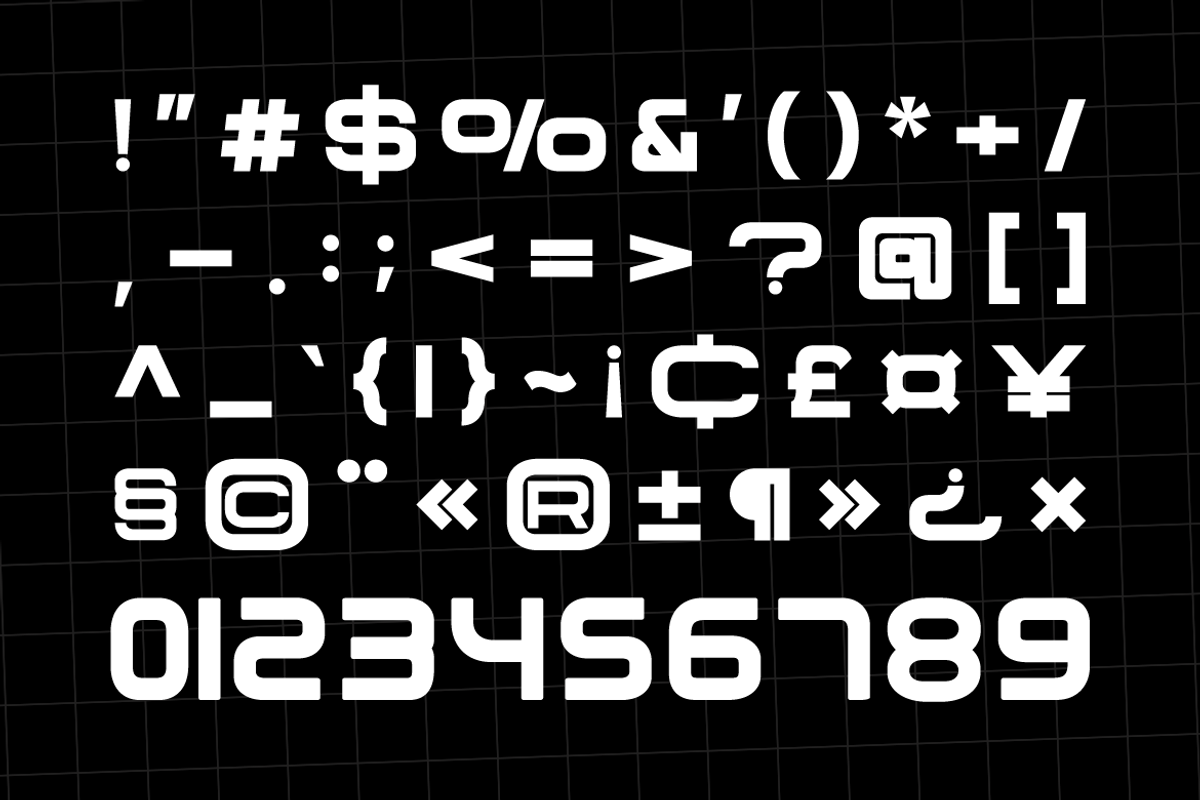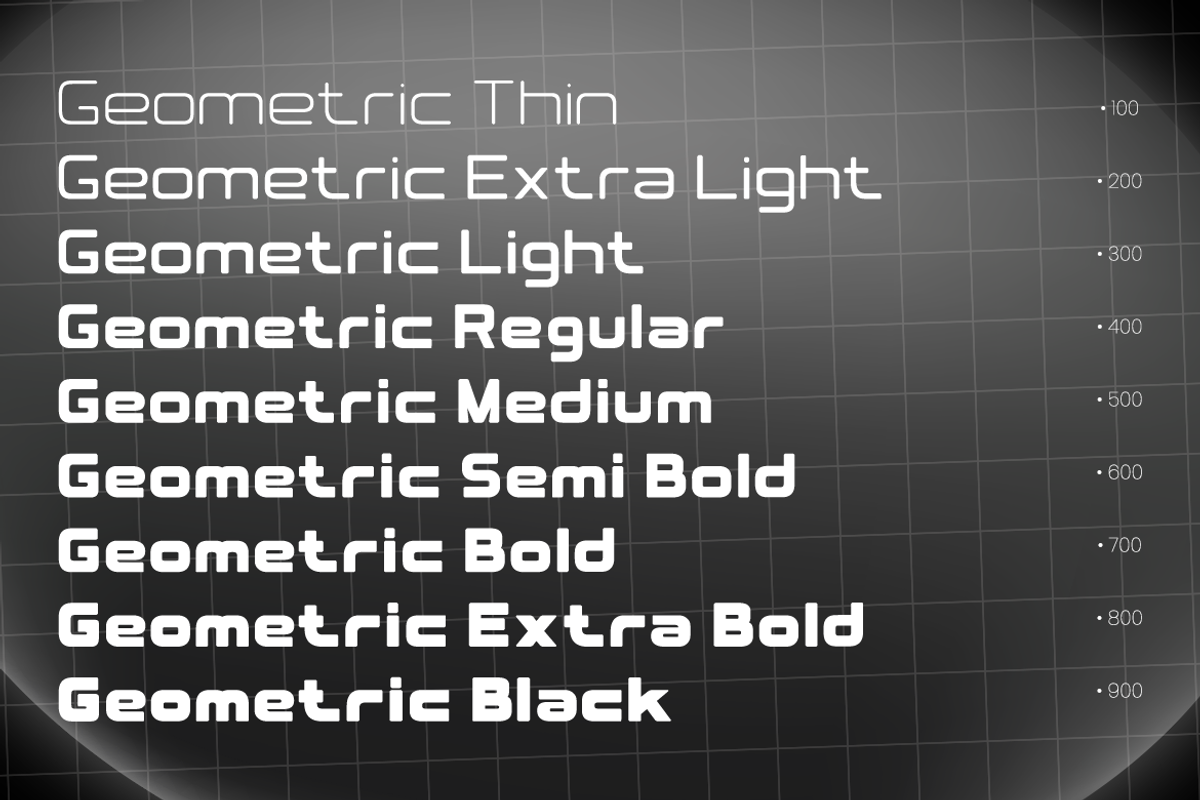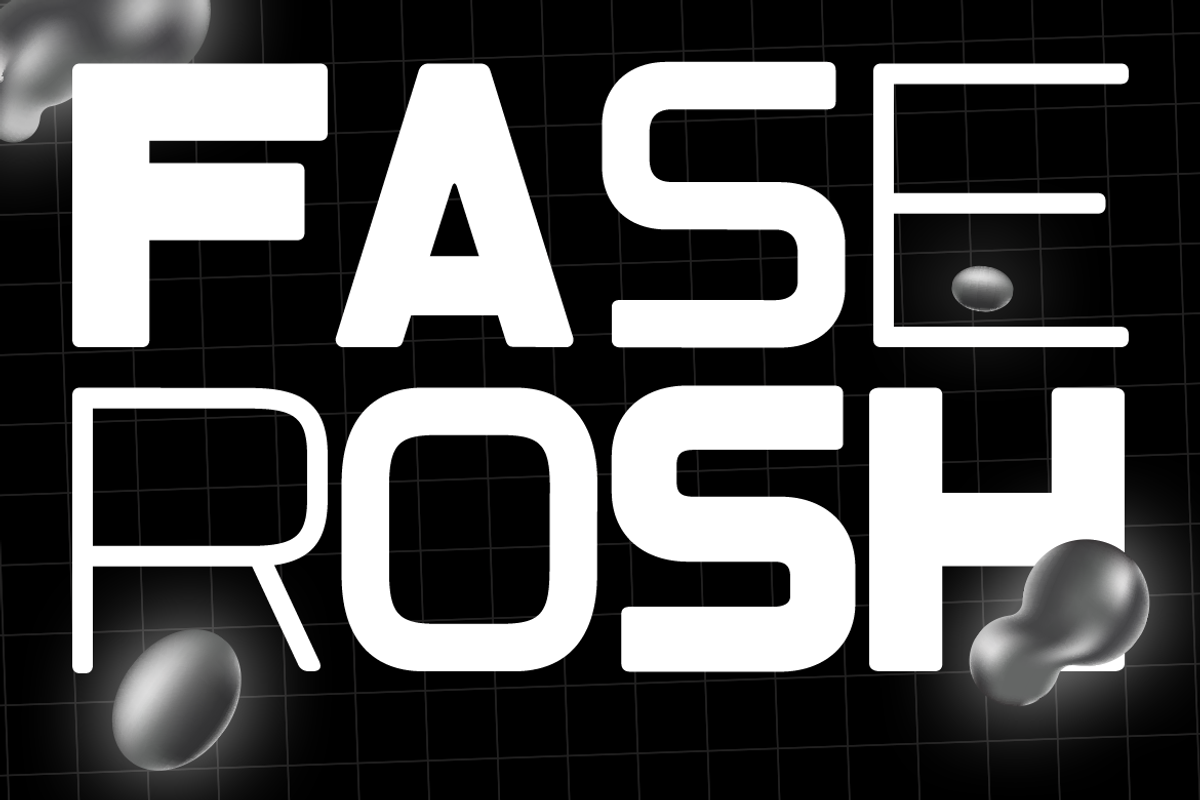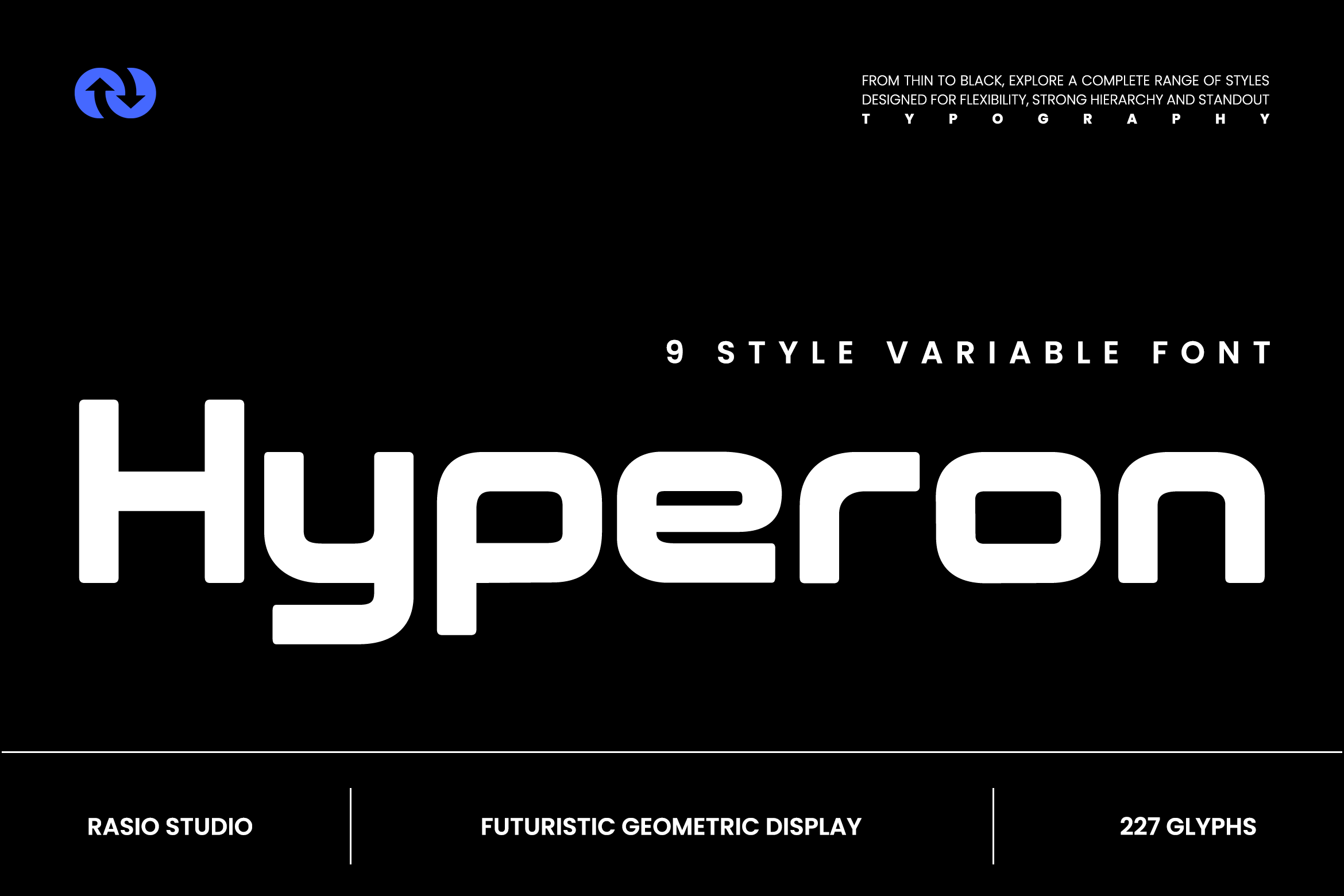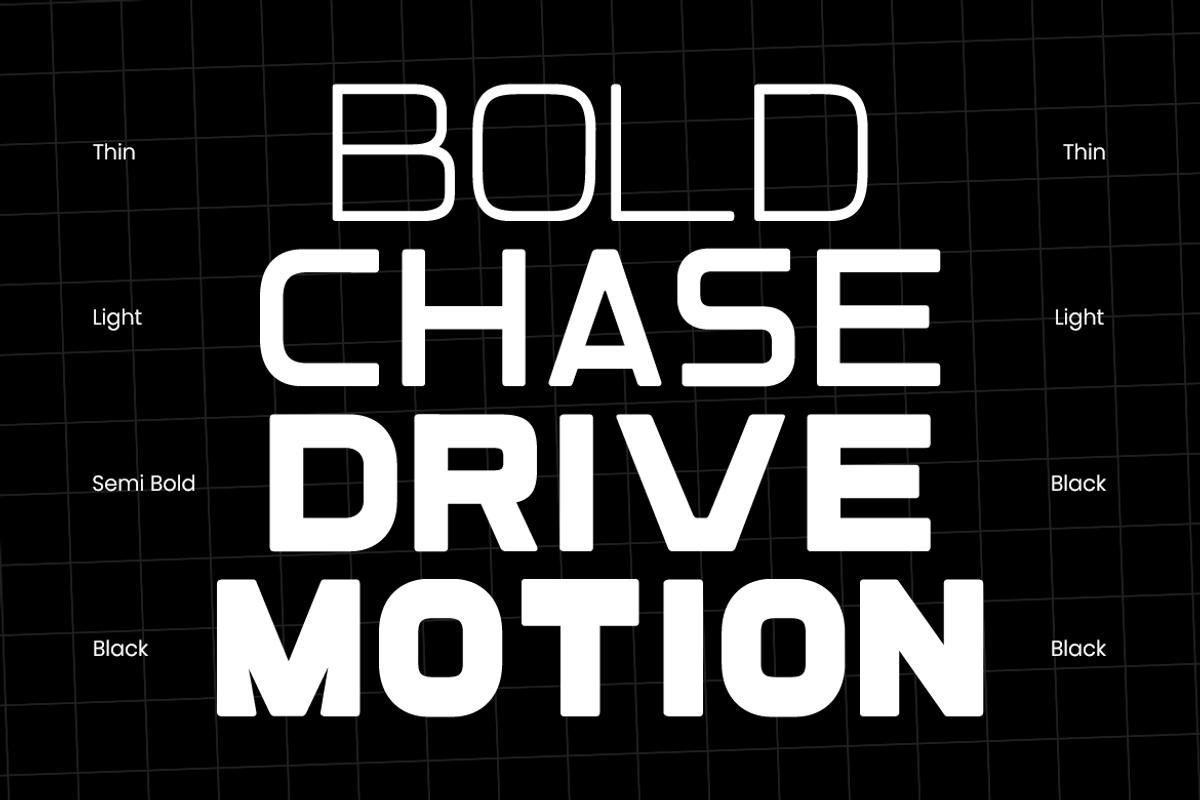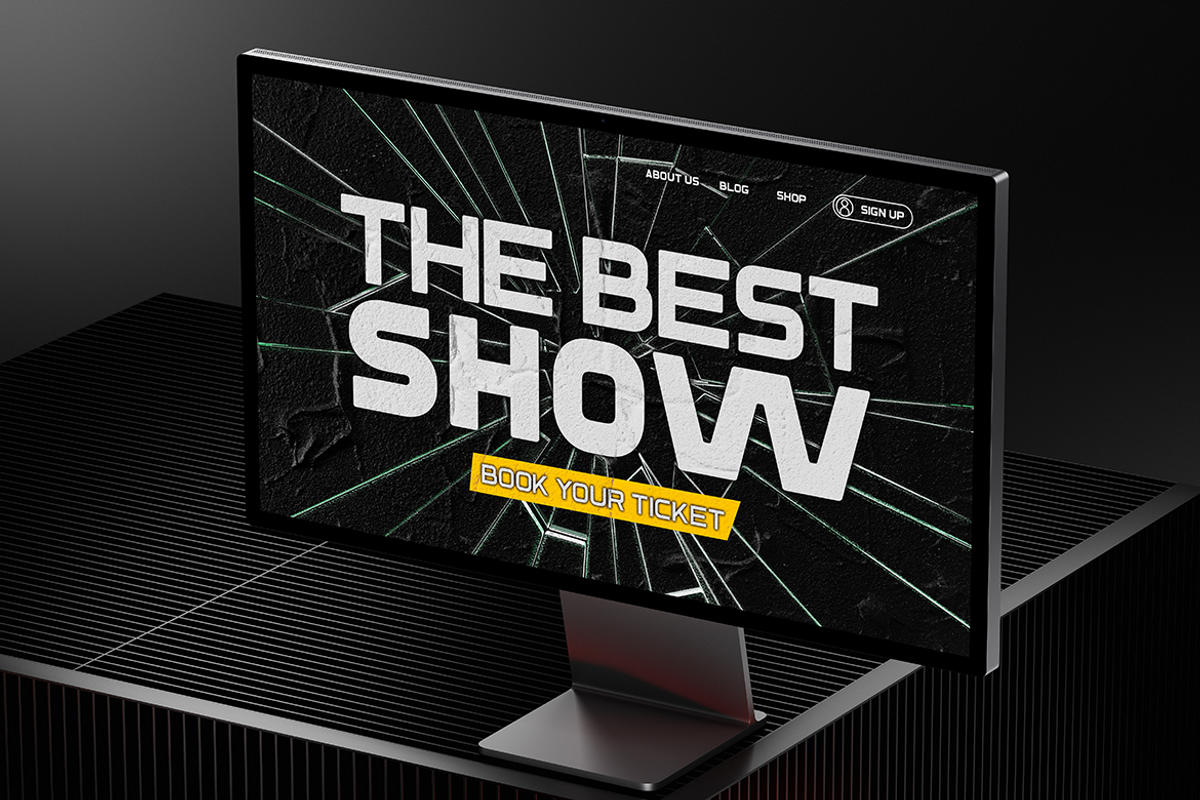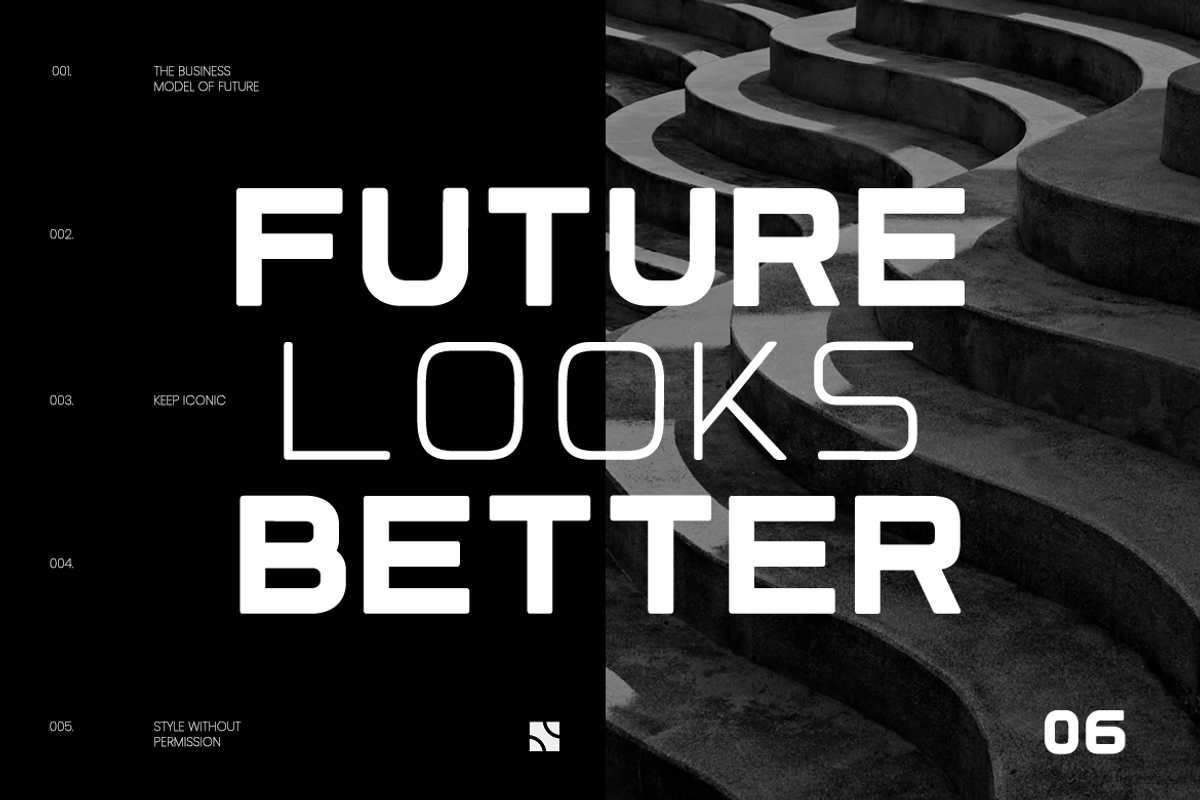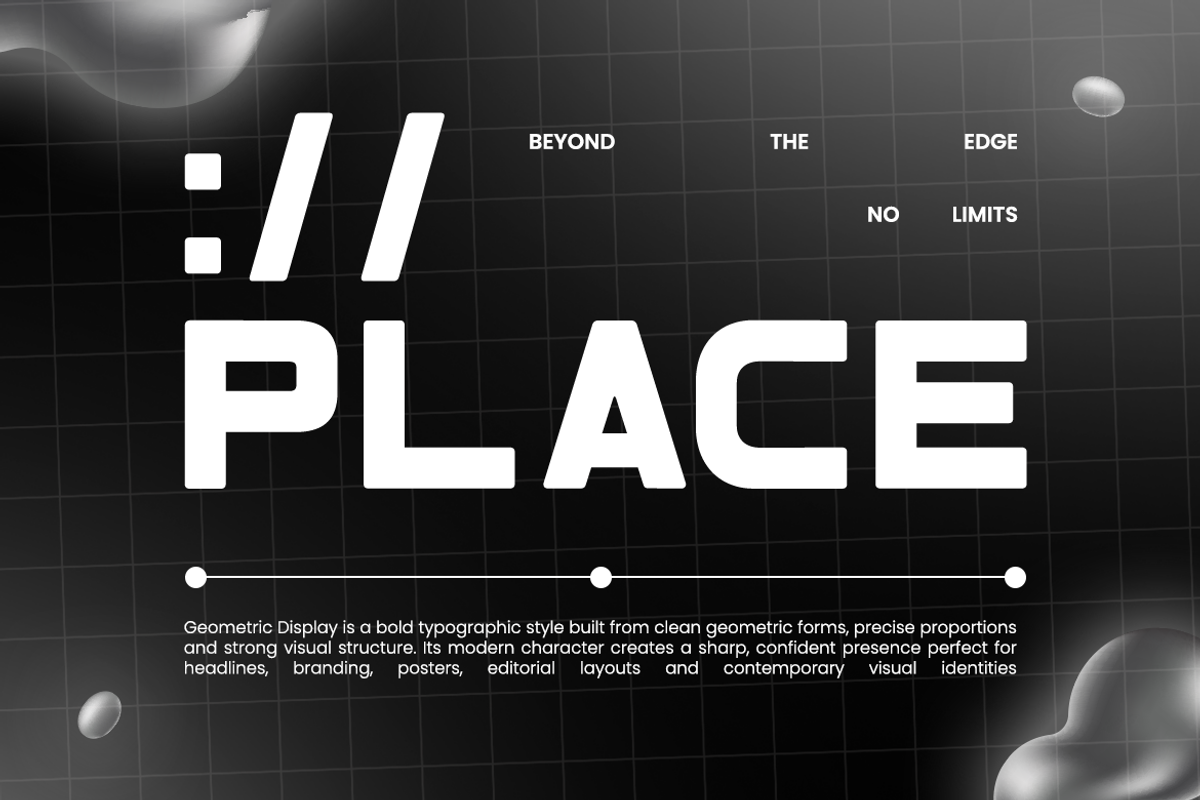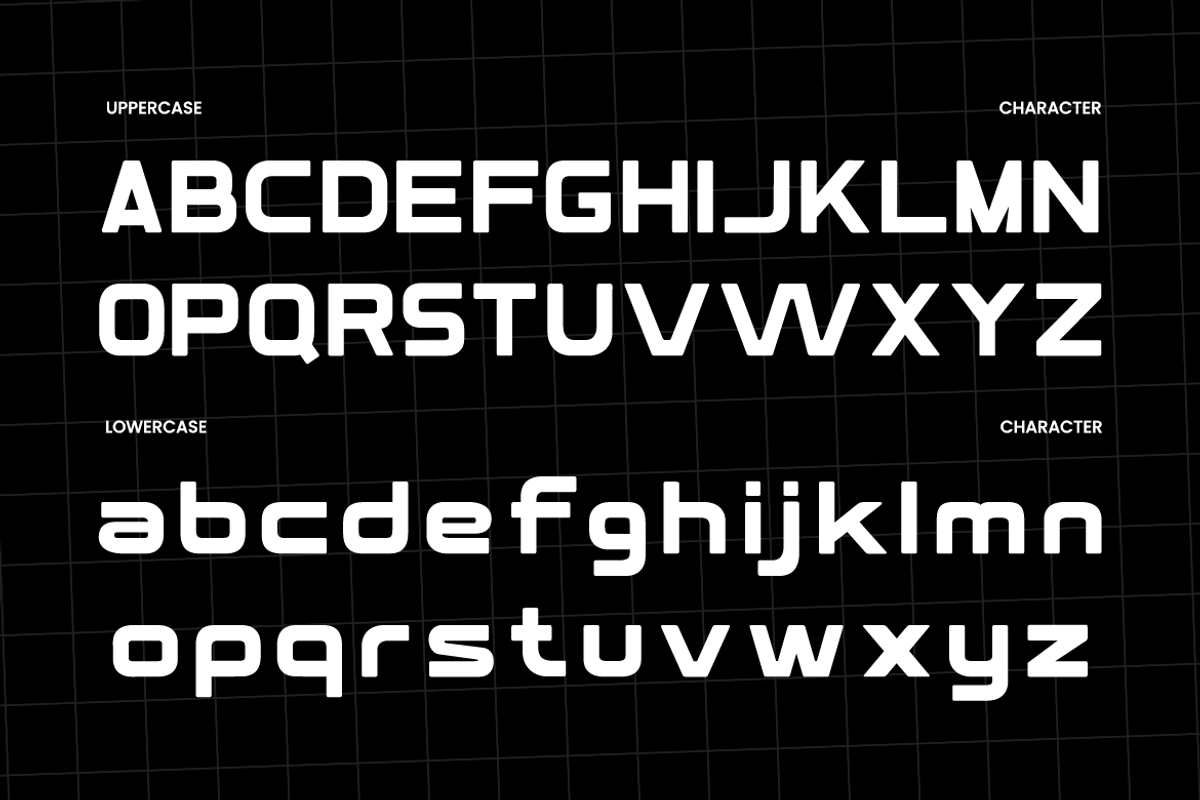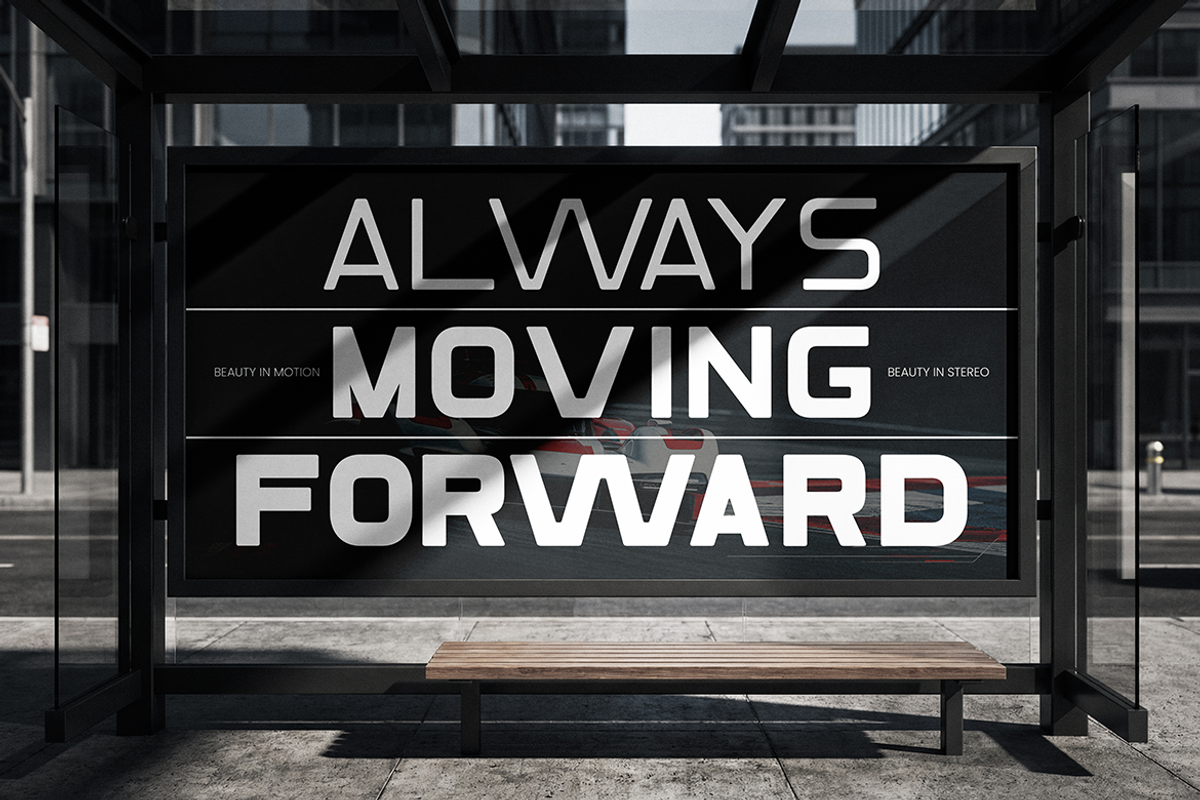
Hyperon Futuristic Geometric Font
Hyperon Futuristic Geometric Font is a futuristic variable sans serif typeface built around bold geometric shapes, rounded corners, and a distinctive technical structure. Its letterforms feature wide proportions, smooth curves, compact counters, and custom horizontal cuts that give the characters a sleek digital appearance. The uppercase letters create a strong, structured silhouette, while the lowercase characters introduce softer rounded forms without losing the futuristic character. With 9 variable styles, Hyperon provides a flexible range of weights that can shift from clean and lightweight typography to bold, high-impact display lettering.
The typeface is designed to work especially well in large-scale typography where its geometric details and unique letter construction can stand out. Its futuristic appearance makes it useful for technology branding, gaming projects, digital products, UI/UX design, posters, headlines, logos, product identities, and contemporary visual campaigns. The lighter styles can support cleaner layouts and interface typography, while heavier styles create strong titles, logos, and visual statements.
Futuristic geometric structure with a strong digital and technical character
Rounded corners create a smooth appearance while maintaining bold visual weight
Wide letterforms provide a solid and spacious typographic presence
Custom horizontal cuts, geometric details give individual characters a distinctive look
Compact counters help maintain clarity within the unconventional letter shapes
Futuristic brand identities and visual systems with a bold, modern character
Technology, gaming, and digital product branding requiring a strong geometric look
UI/UX interfaces, web designs, and app layouts for contemporary digital products
Sports, esports, and entertainment graphics with a powerful display style
Posters, headlines, and social media designs that need high-impact typography
Supports numerals, punctuation, and extensive symbol set